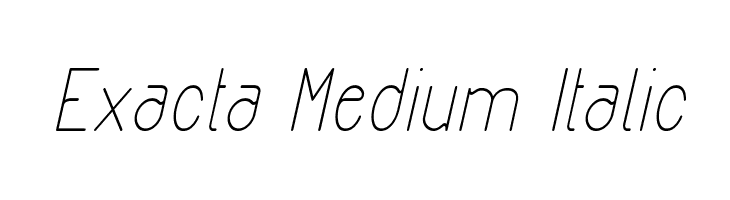
A thin, geometric font with a modern and minimalist design.
A sleek, modern, and italicized font with thin strokes and a dynamic appearance.
A sleek, modern, and italicized font with thin strokes and a minimalist design.
A sleek, light, and italicized font with a modern and elegant style.
A clean, geometric sans-serif font with consistent stroke width and balanced spacing.
A clean, modern sans-serif font with geometric structure and balanced spacing.
A modern, geometric sans-serif font with consistent stroke width and balanced character spacing.
A sleek, modern italic font with clean lines and elegant proportions.
A sleek, modern italic font with elongated, uniform strokes and a dynamic appearance.
A sleek, modern italic font with consistent stroke width and elegant design.